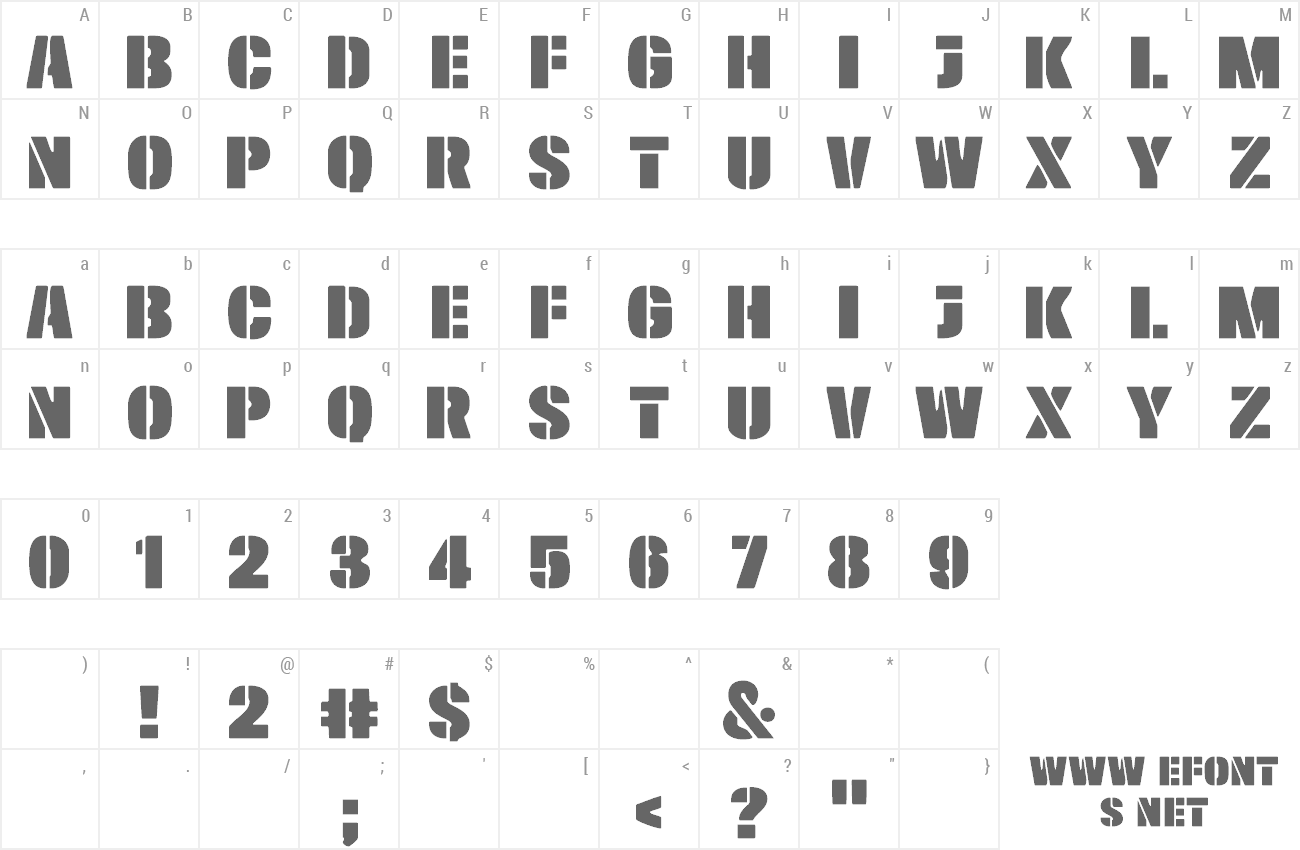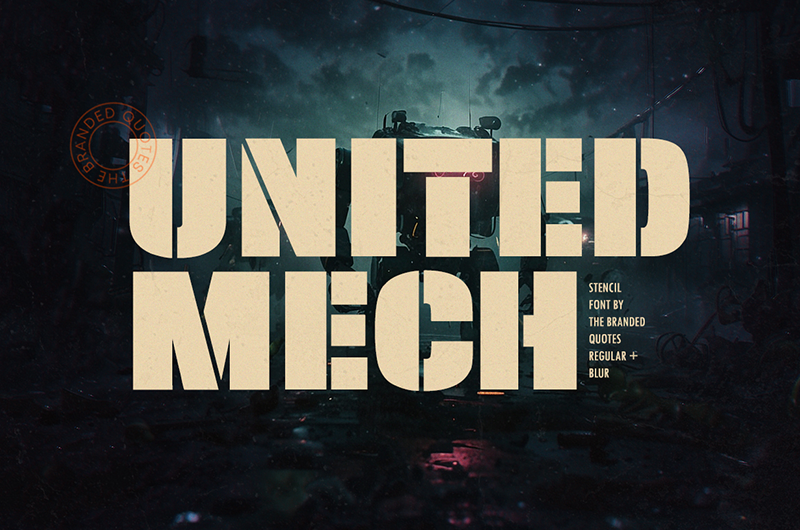
Preview and download United Mech Font. Created by The Branded Quotes in Fancy Stencil, Army styles with Free for personal use license.
Personal Use Only. Buy the full version: https://thebrandedquotes.sellfy.store/p/united-mech-font/ About this font: United Mech is a stylish stencil font that draws inspiration from the futuristic elements found in modern science fiction movies and popular tactical video games. The two versions of this font gives a versatile choice for various design projects. The font's design elements are reminiscent of the high-tech gadgets. The clean lines and bold appearance can effectively convey a sense of strength and professionalism. Download Includes: United Mech OTF United Mech Blur OTF Previews Thanks and Enjoy! |